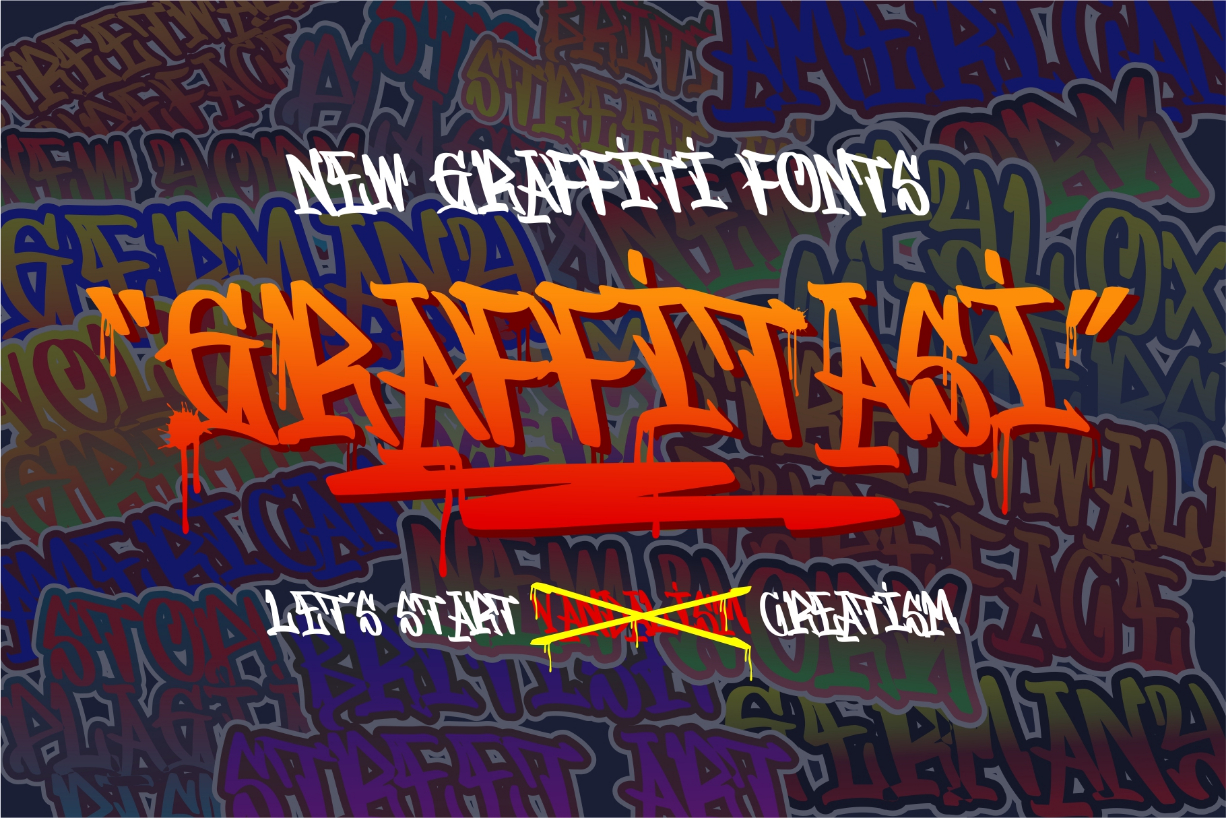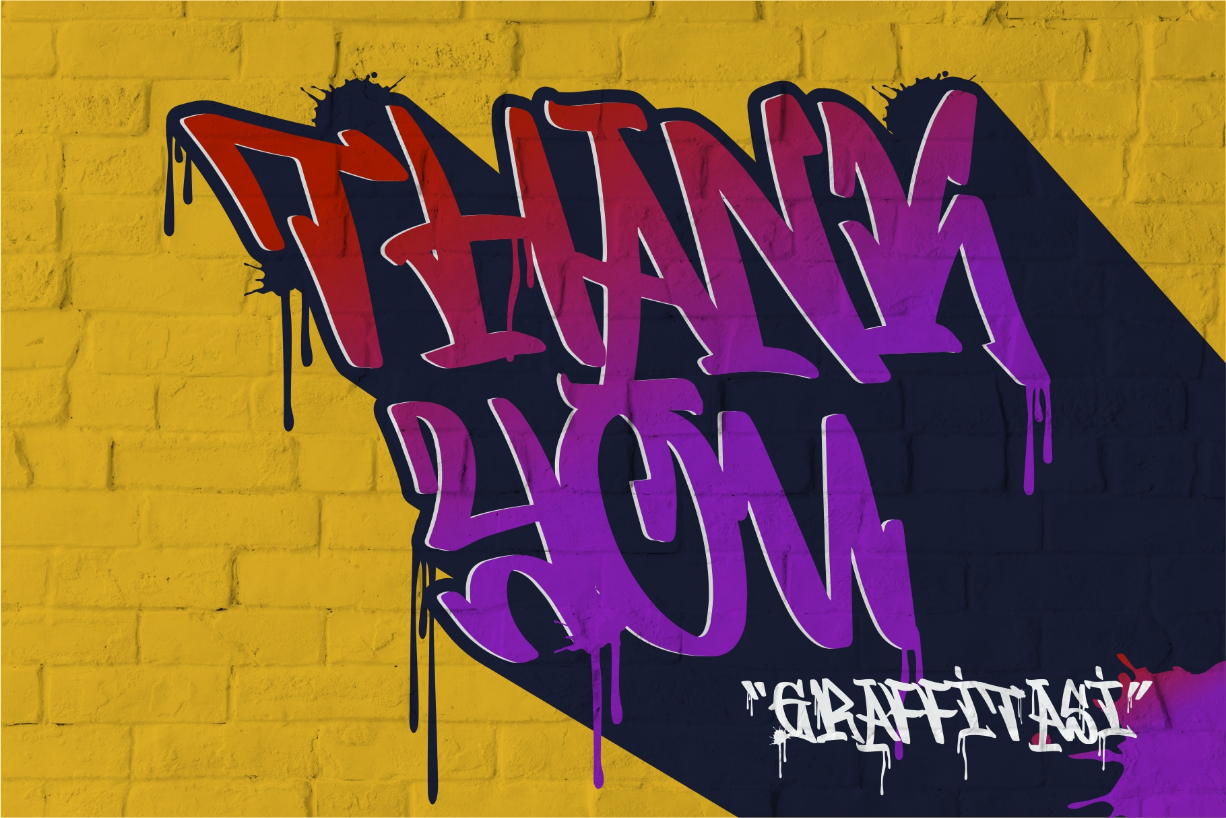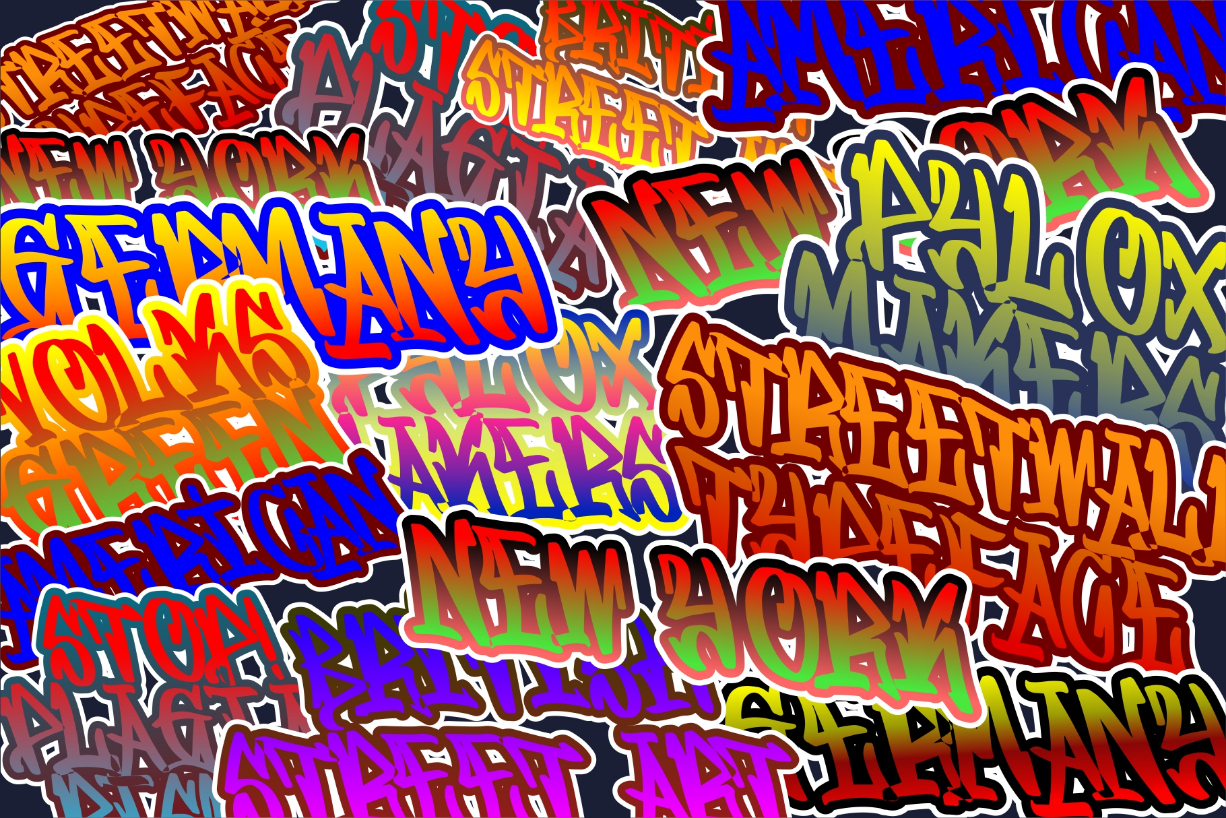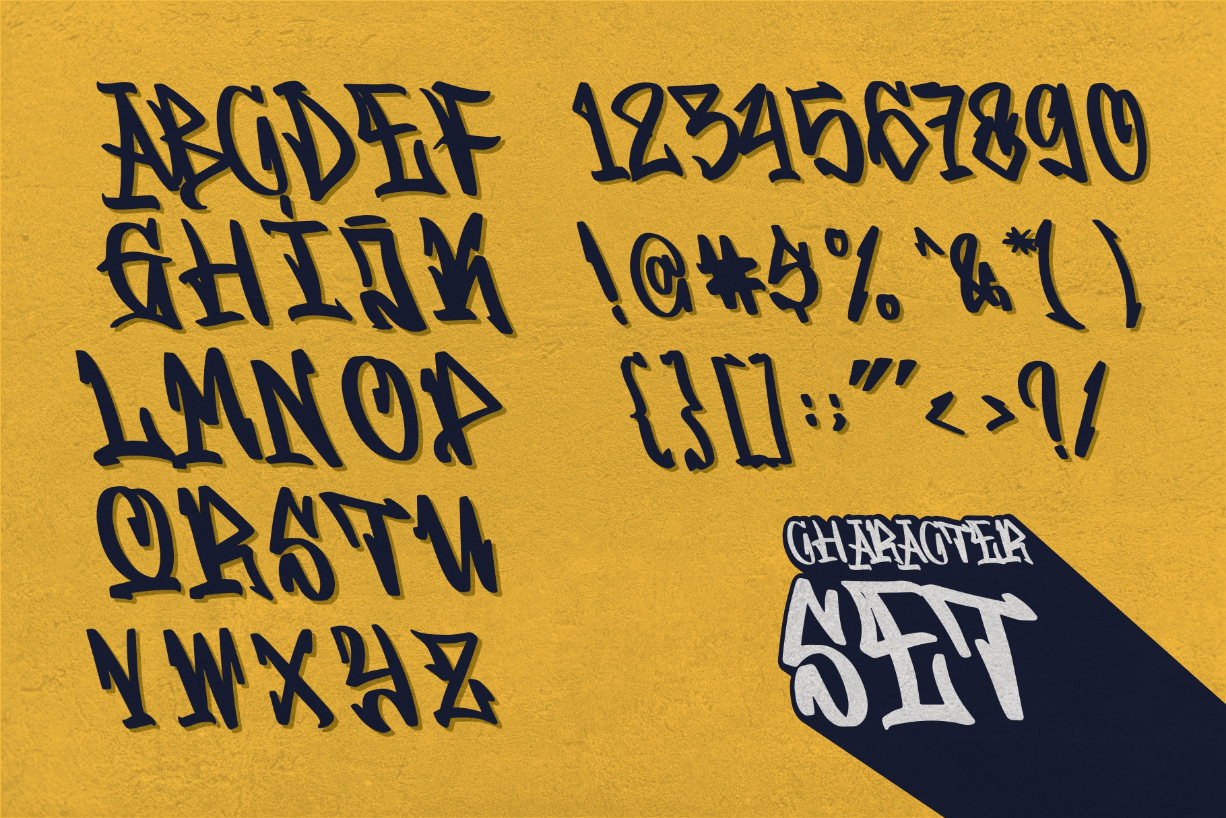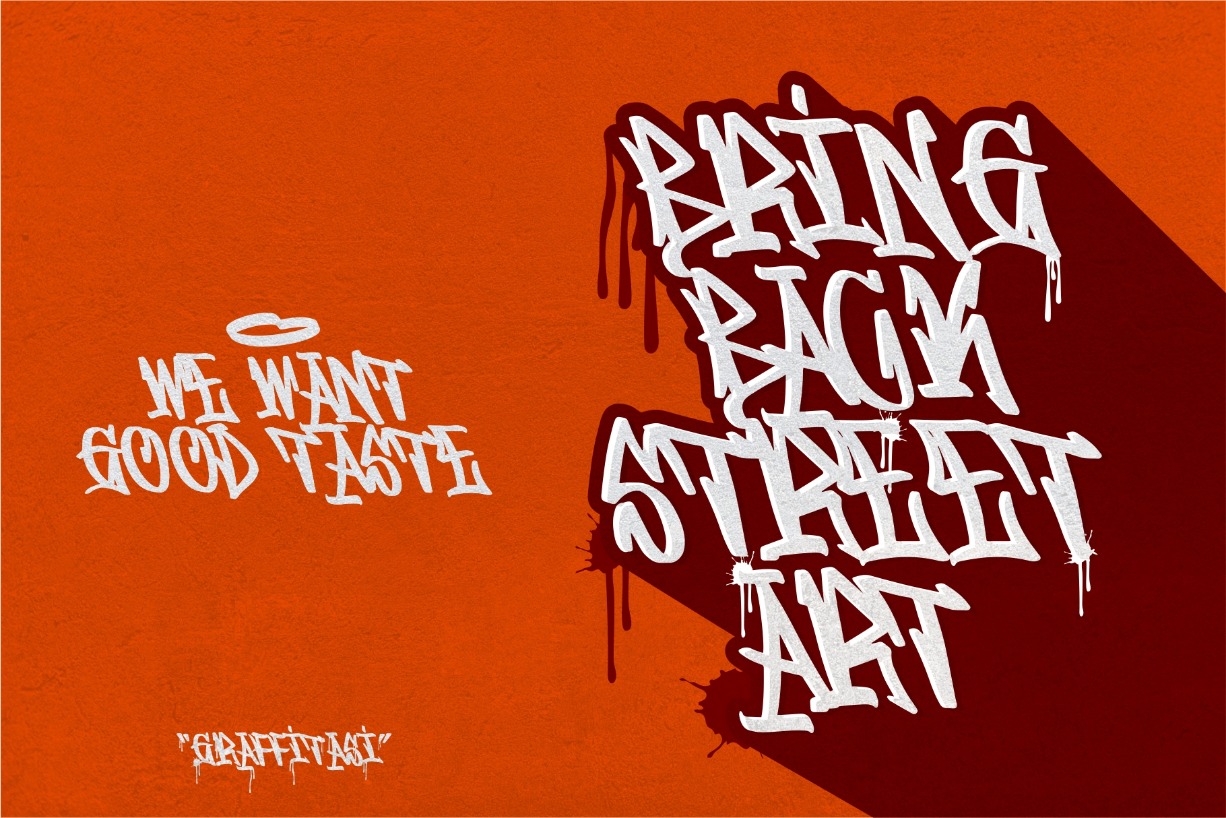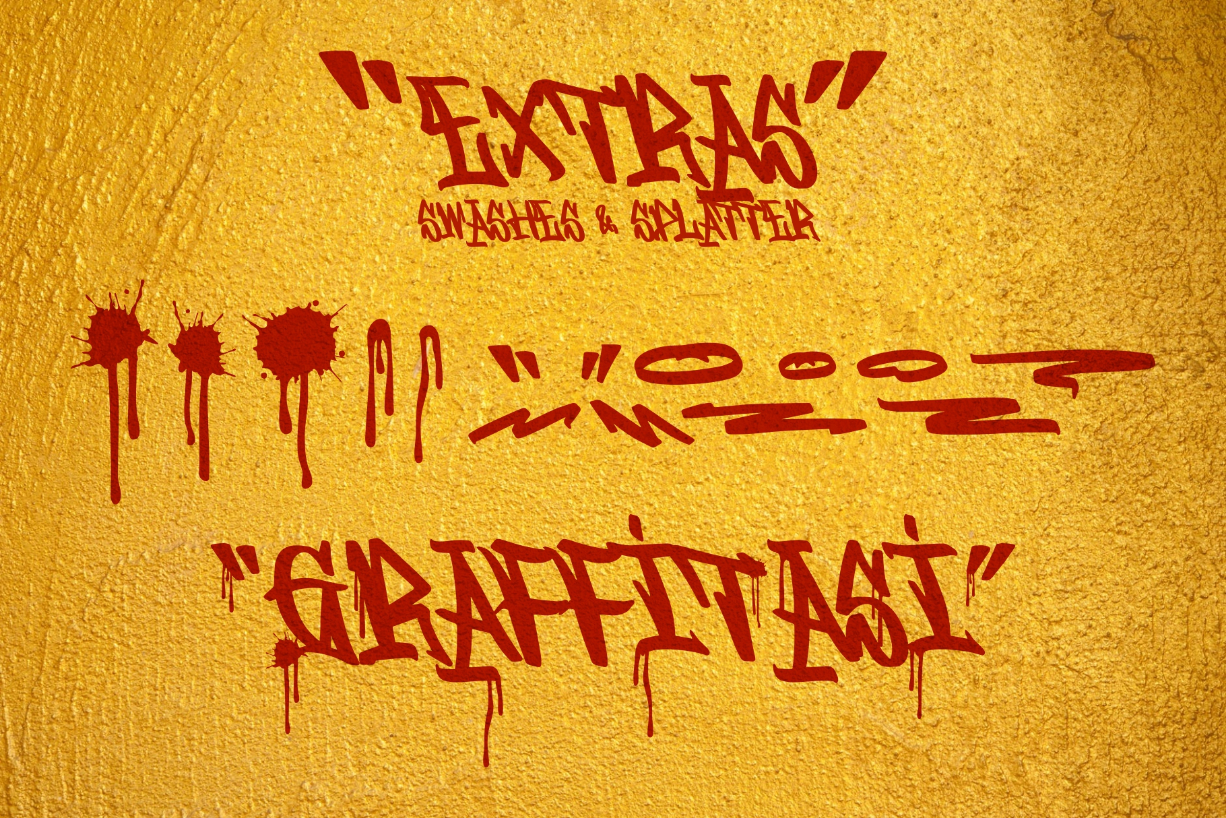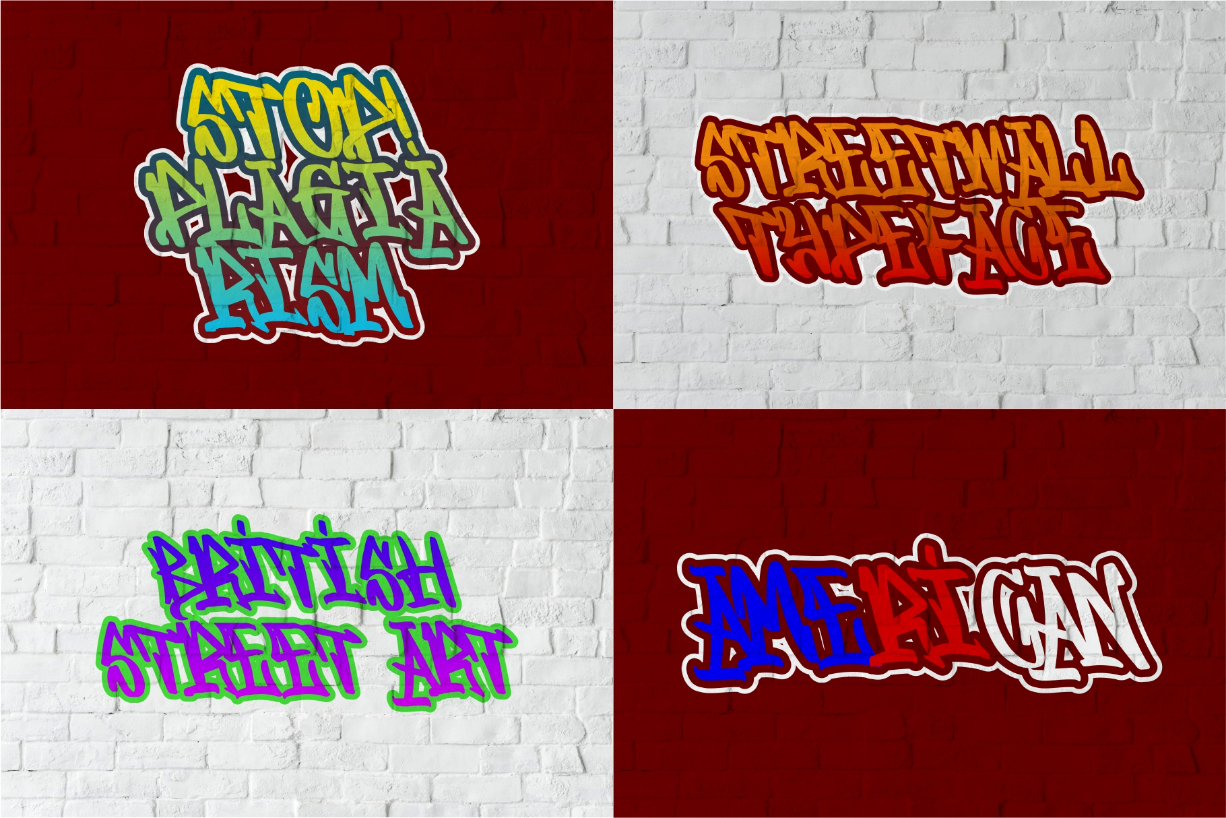
Graffitasi Font
About Graffitasi Font
The Graffitasi is an unique graffiti font. It was inspired from street writings with a high artistic value. This street-like font can be used without committing vandalism, and is perfect for adding an unique and striking touch to your designs.